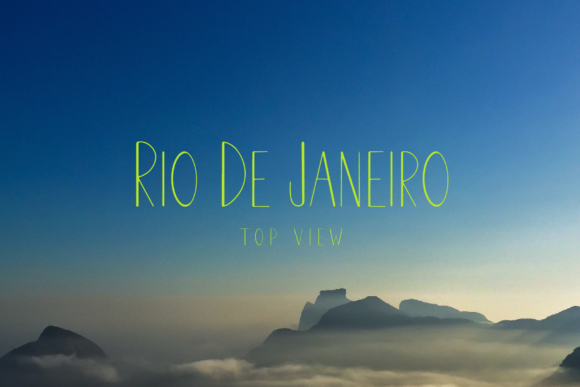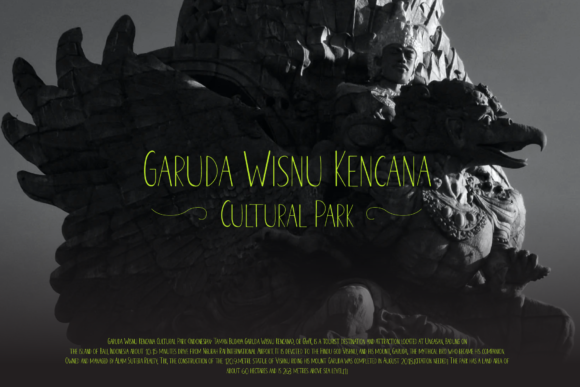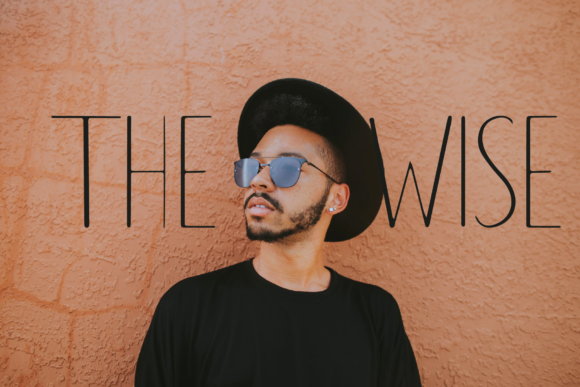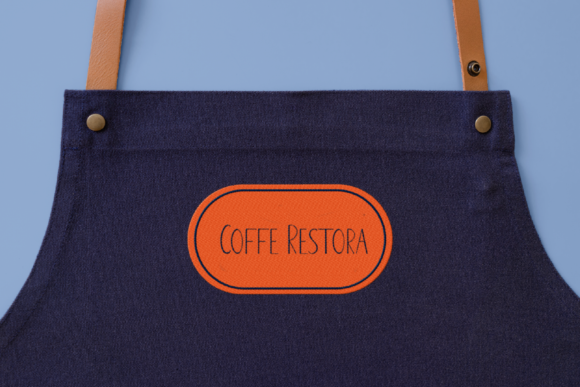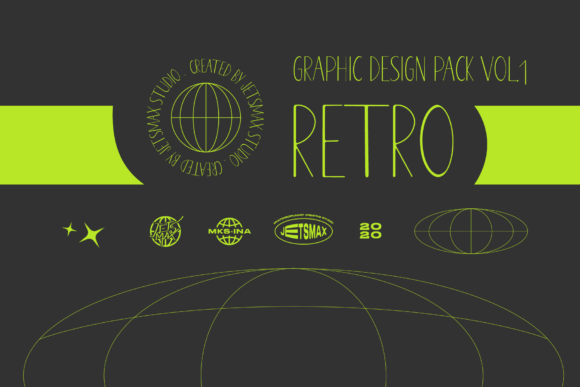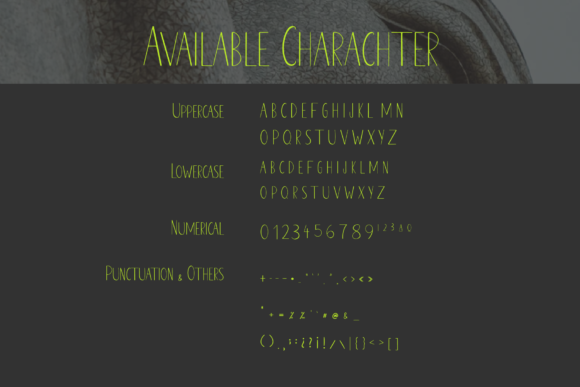
Introduction to Marcondensed Font
Remember that moment when you finally landed your dream project? The rush of excitement, the thrill of creation, and the satisfaction of bringing your vision to life? For designers, this feeling is what drives us to push the boundaries of our craft and strive for perfection. And, let’s be honest, the right font can make all the difference.
Enter the Marcondensed Font, a simple yet powerful sans serif typeface that’s about to become your new go-to design resource. With its clean lines, high-quality aesthetic, and versatility, this font is perfect for creating eye-catching posters, striking headlines, and even custom logo designs. Whether you’re working on a creative project or just need a reliable font for your branding, Marcondensed Font is the perfect choice.
Not only is Marcondensed Font a valuable addition to any designer’s toolkit, but it’s also a free download, making it accessible to designers of all levels. And, with its transparent background, you can easily layer it over images or use it as a standalone design element. Get ready to take your designs to the next level with the Marcondensed Font.
Key Features of Marcondensed Font
- High-quality design resource ideal for creative projects requiring a modern, condensed aesthetic.
- Unique characteristics include a transparent background and a highly legible condensed design.
- Designed to be versatile and suitable for a variety of applications, from digital displays to print materials.
Honest Review: Marcondensed Font
I recently had the chance to work with the Marcondensed Font for a creative project, and I must say I was quite impressed. This font is a fantastic design resource for anyone looking to add a modern touch to their work.
What works well: ✨ The font is available for free download, making it an excellent option for those on a tight budget or for personal projects. It also features a transparent background, which makes it easy to use in various design contexts. The high quality of the font is evident in its clean and sleek lines, making it perfect for titles and headings.
However, there are a few limitations to consider: ⚠️ The font may not be suitable for smaller text sizes, as it can appear a bit thin. Additionally, the font family is limited to a single style, which may not be ideal for those who need a range of options.
Overall, I was pleased with the Marcondensed Font and would definitely consider using it again for future projects. Its free download and high quality make it a valuable design resource for anyone looking to add a touch of sophistication to their work.
- High quality design
- Not suitable for smaller text sizes
- Limited font family options
How to Use Marcondensed Font
Designing with Marcondensed Font
The Marcondensed Font is a versatile and high-quality design resource ideal for creative projects. With its sleek and modern aesthetic, it’s perfect for adding a touch of sophistication to your designs.
Tips for Getting the Most Out of Marcondensed Font
Use the Marcondensed Font in conjunction with other high-quality design resources to create a cohesive look. Experiment with different font sizes, styles, and colors to add depth and visual interest to your design.
The Marcondensed Font is ideal for a variety of design projects, including:
- Website headers and footers
- Social media graphics and ads